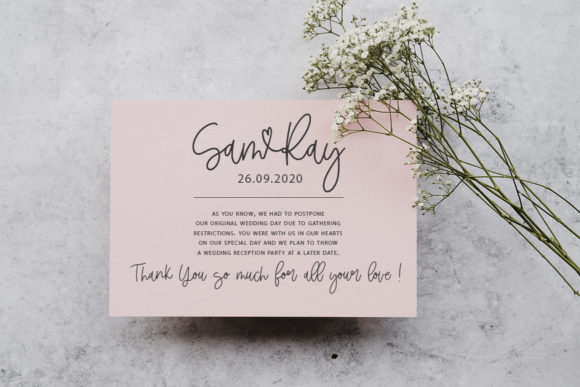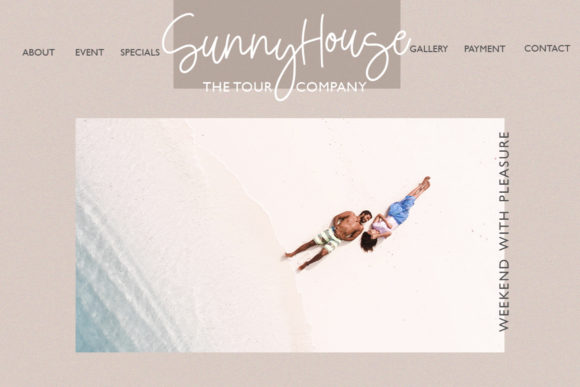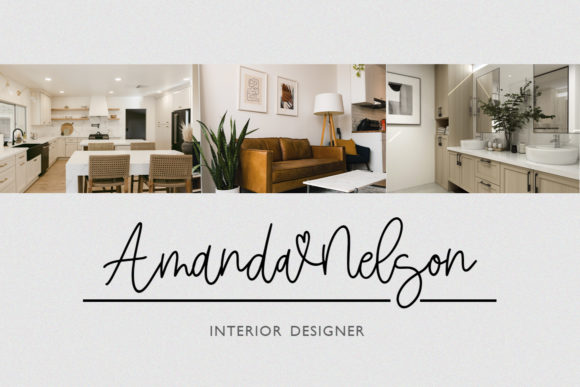
Rustic Love Font
Rustic Love is a cute and dainty handwritten font, described by a refined touch. Fall in love with its distinct and timeless style and use it to create spectacular designs!